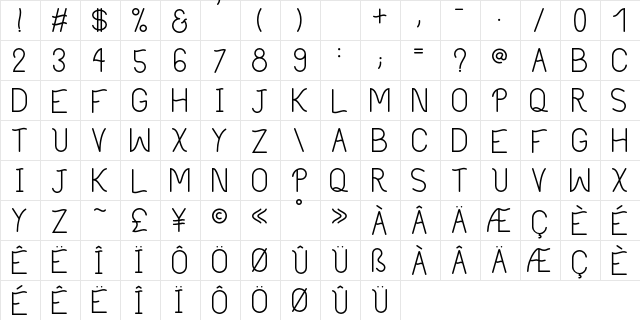
Philippine Regular
| Designer | Valentin FRANCOIS |
Design Context for Philippine Typeface
Philippine takes a measured approach to typography — its balanced proportions and neutral character make it a reliable workhorse for both digital and print work.